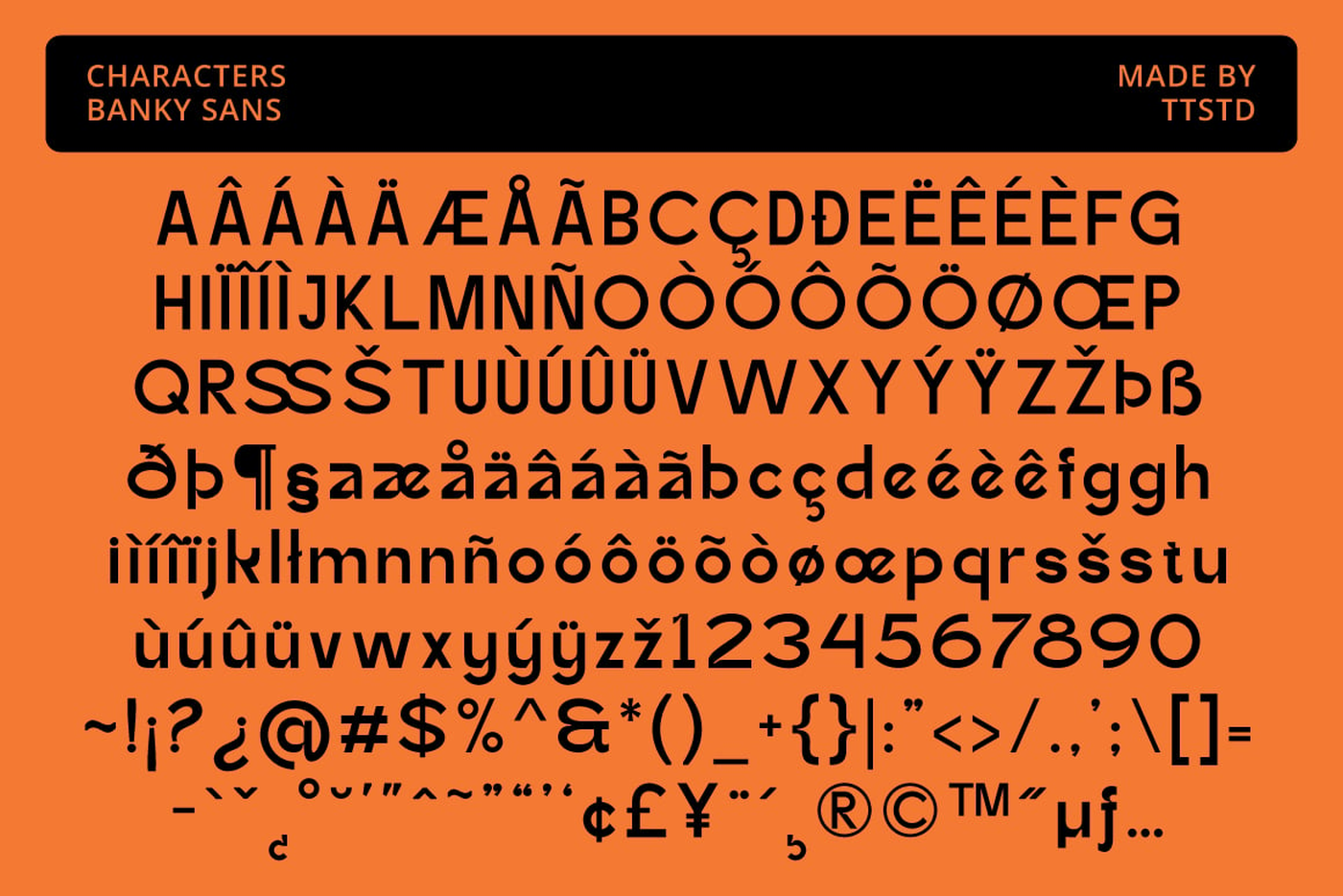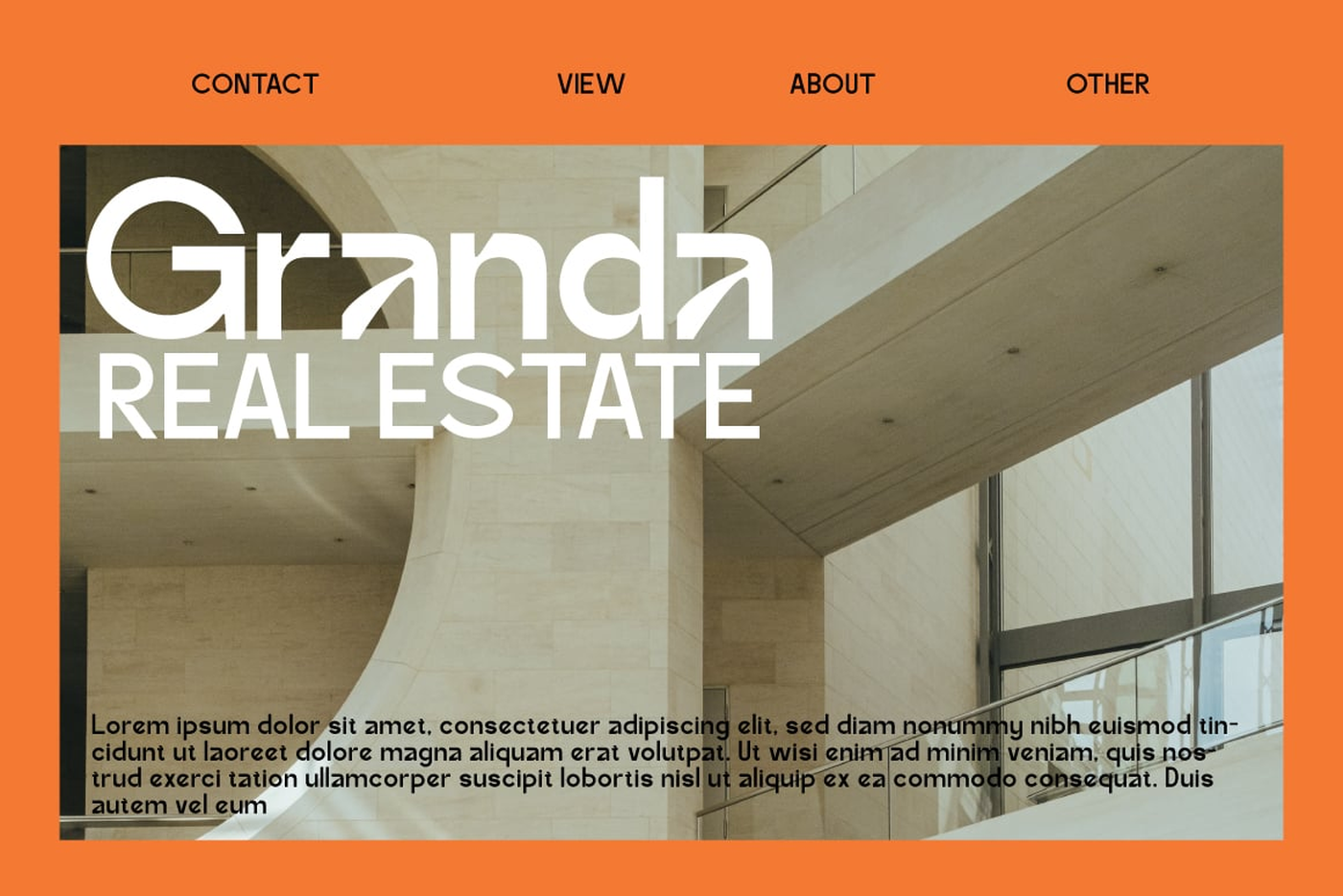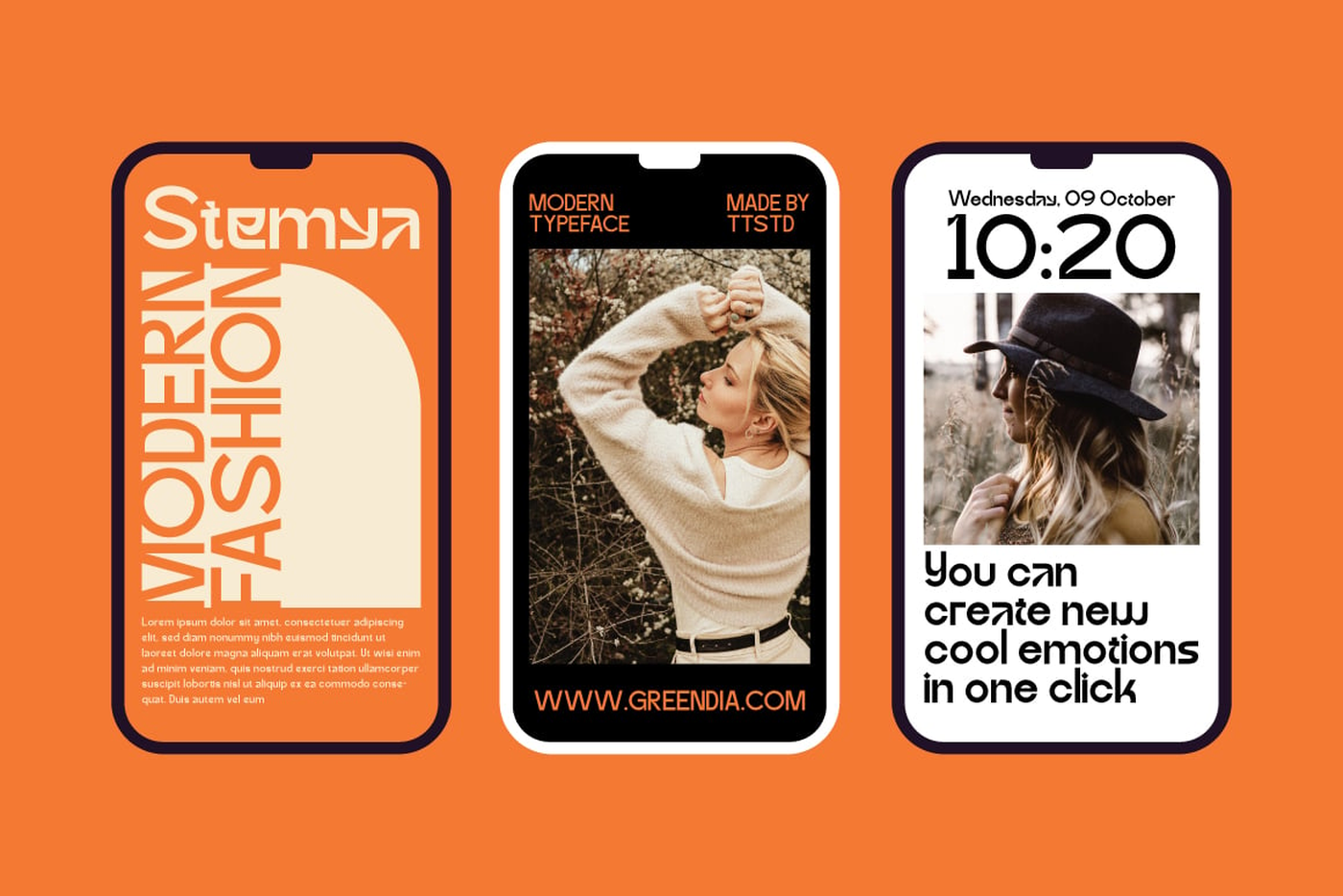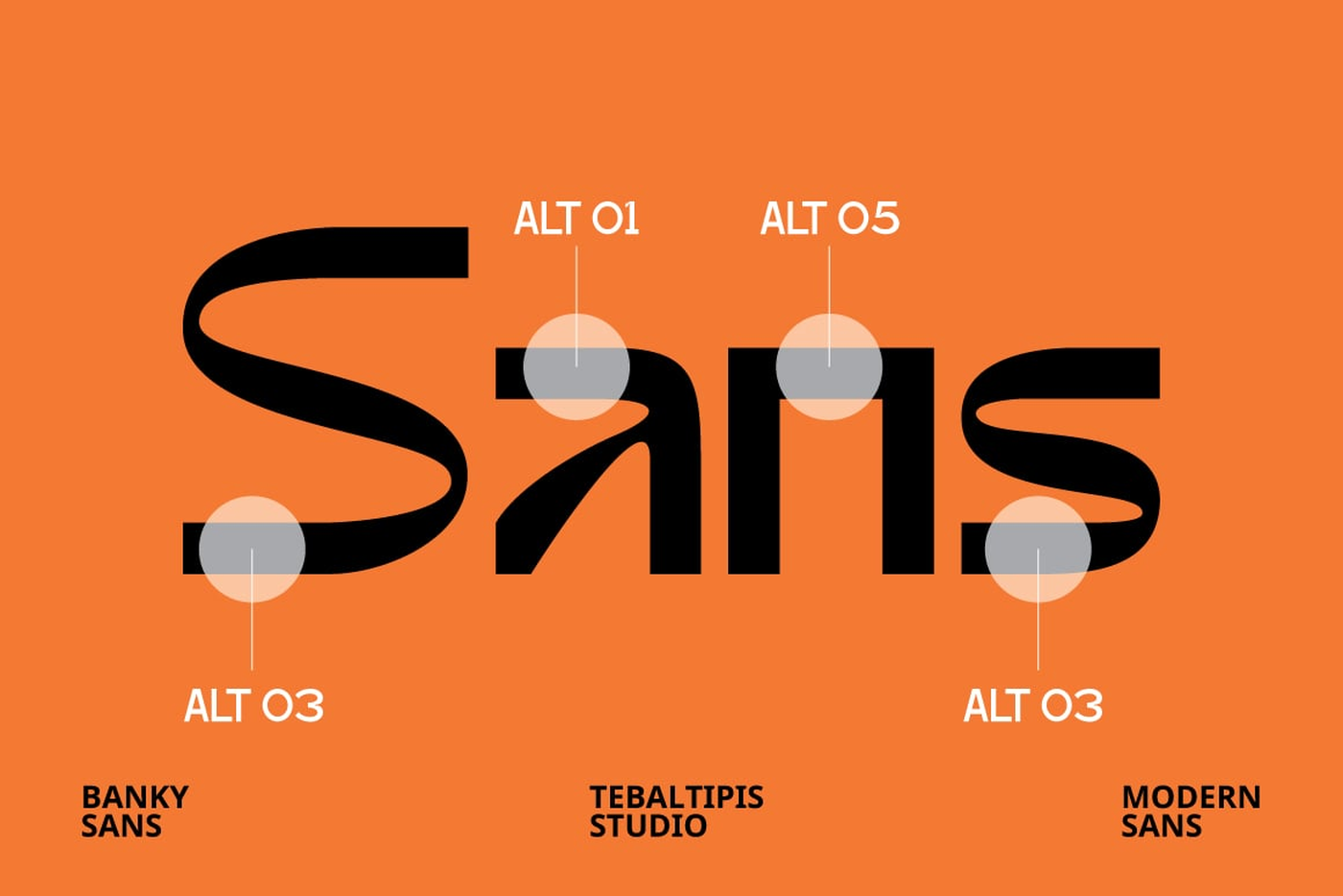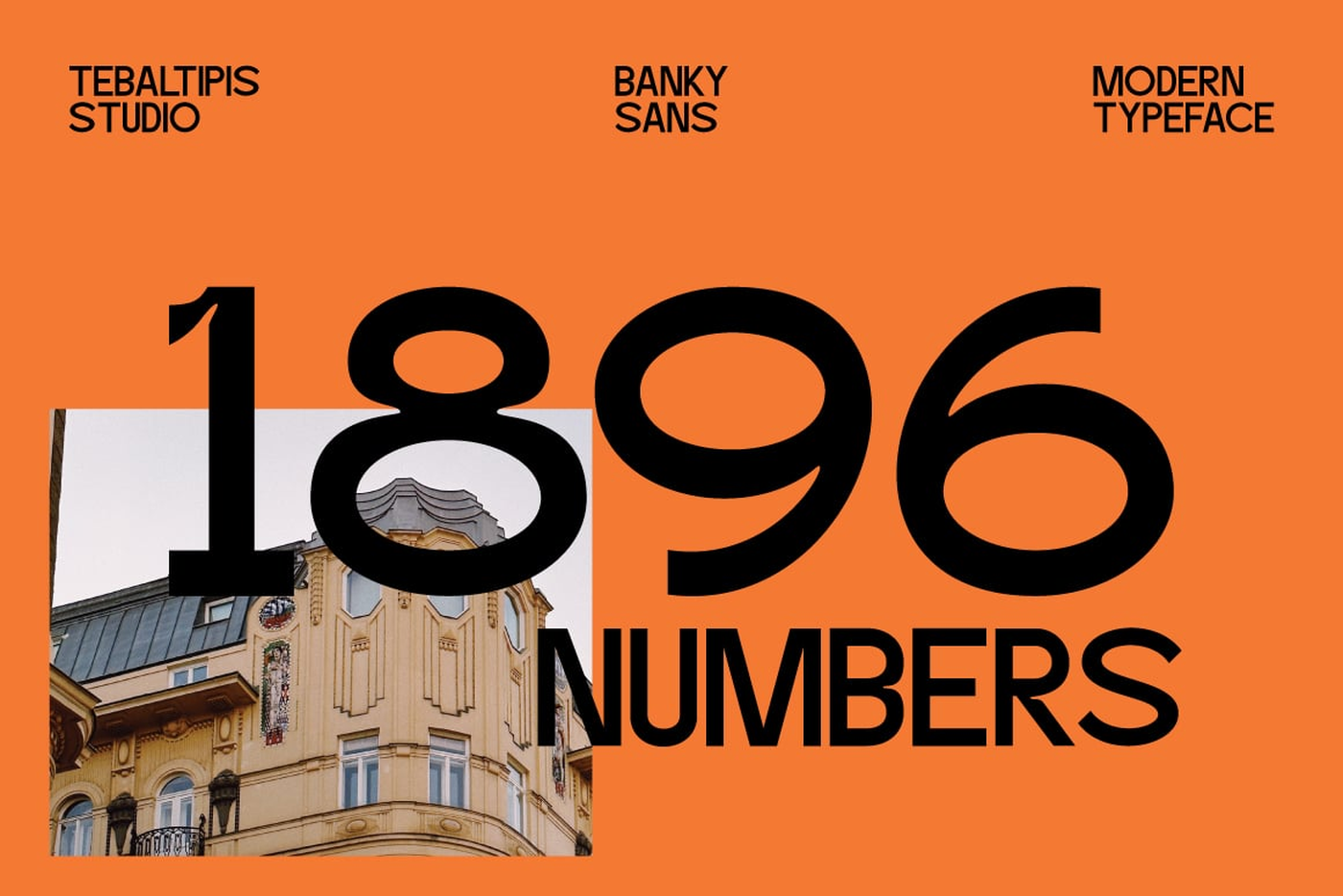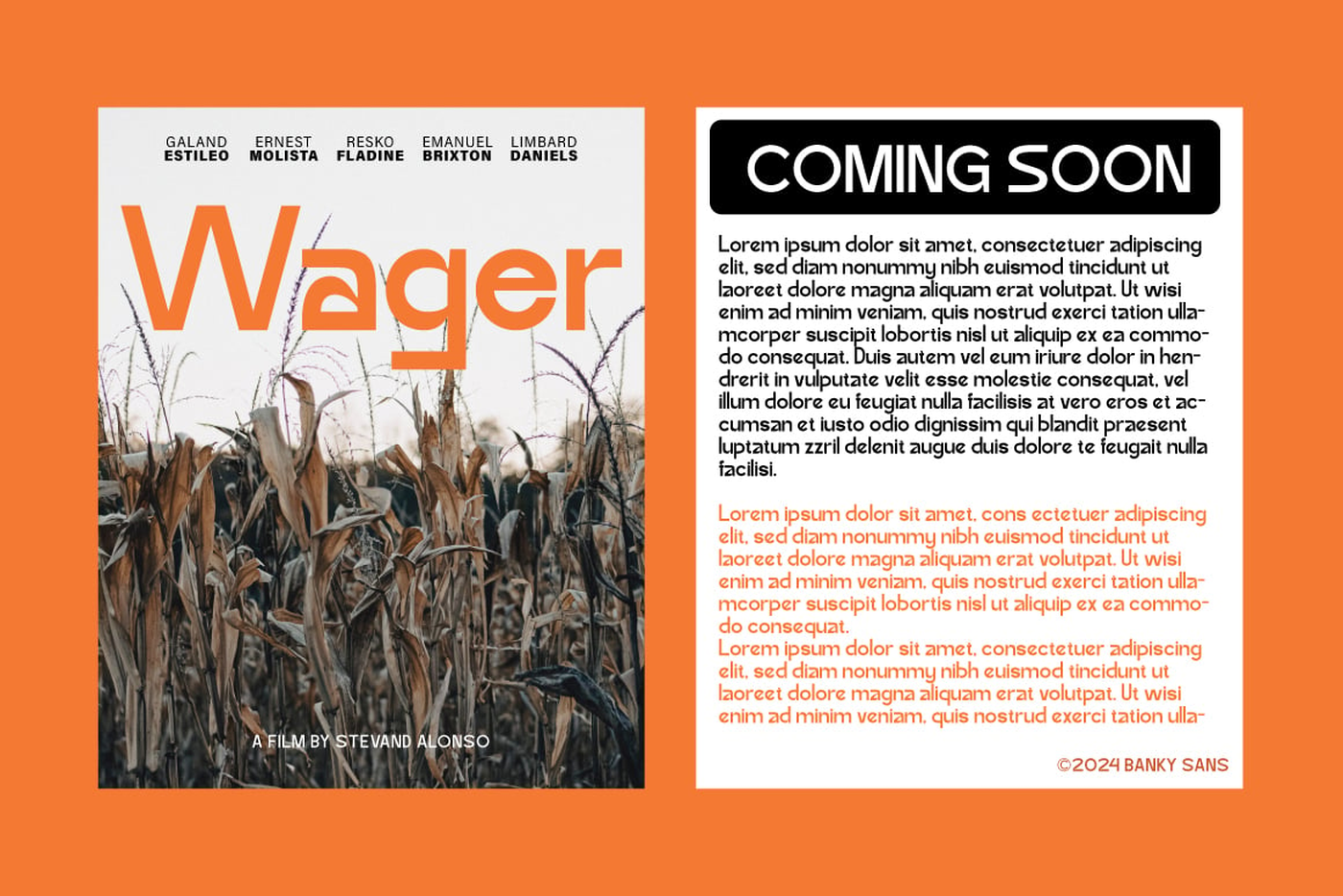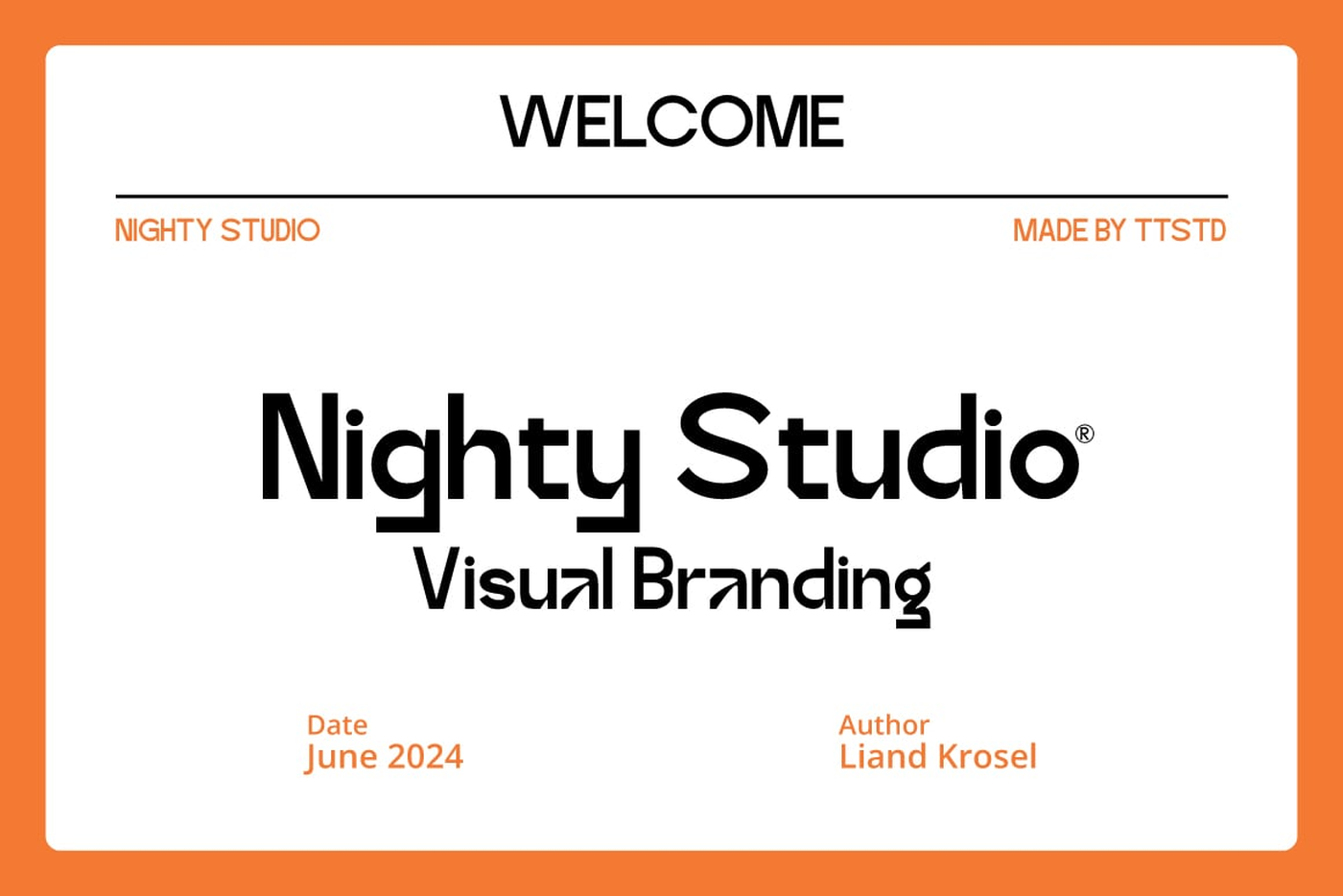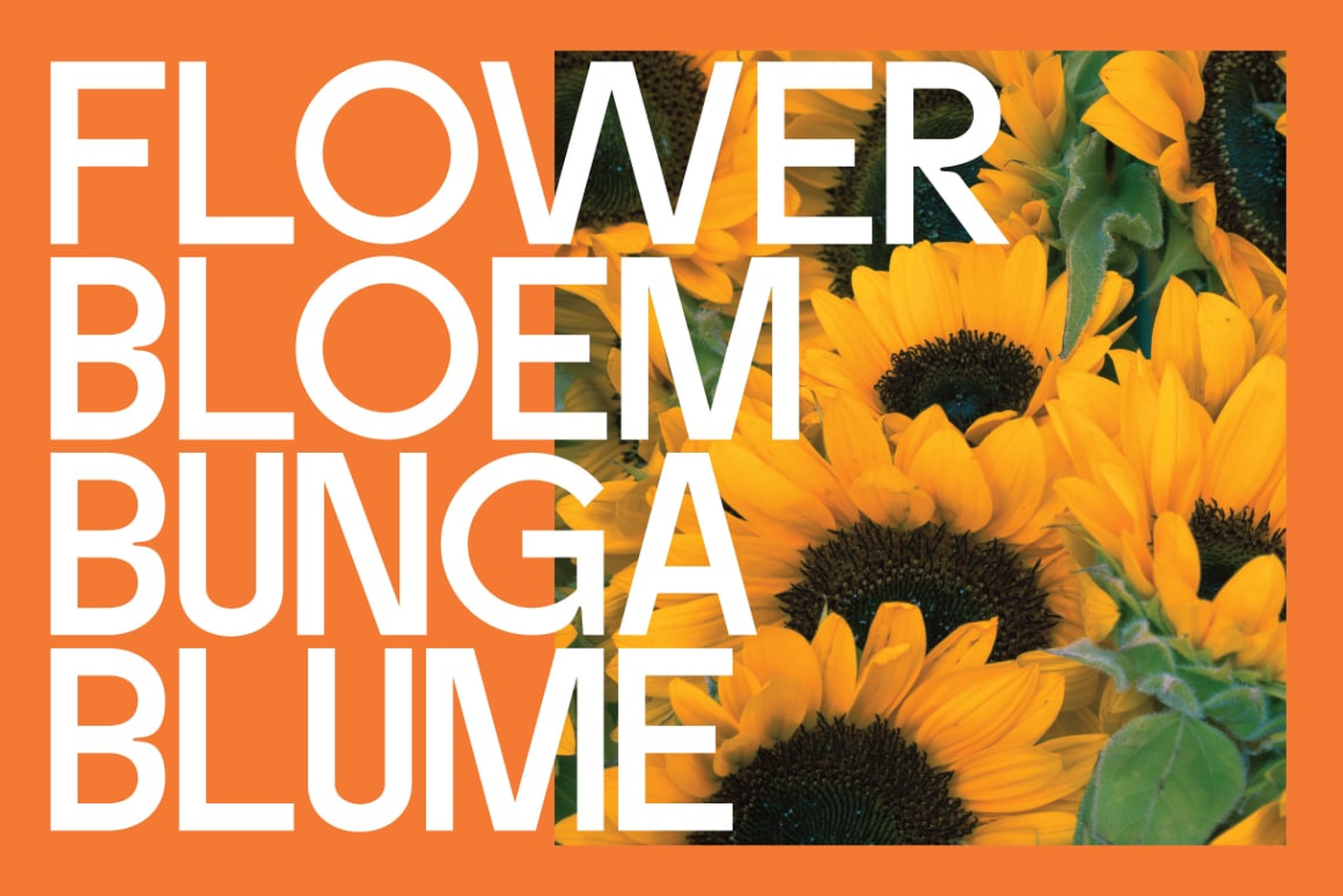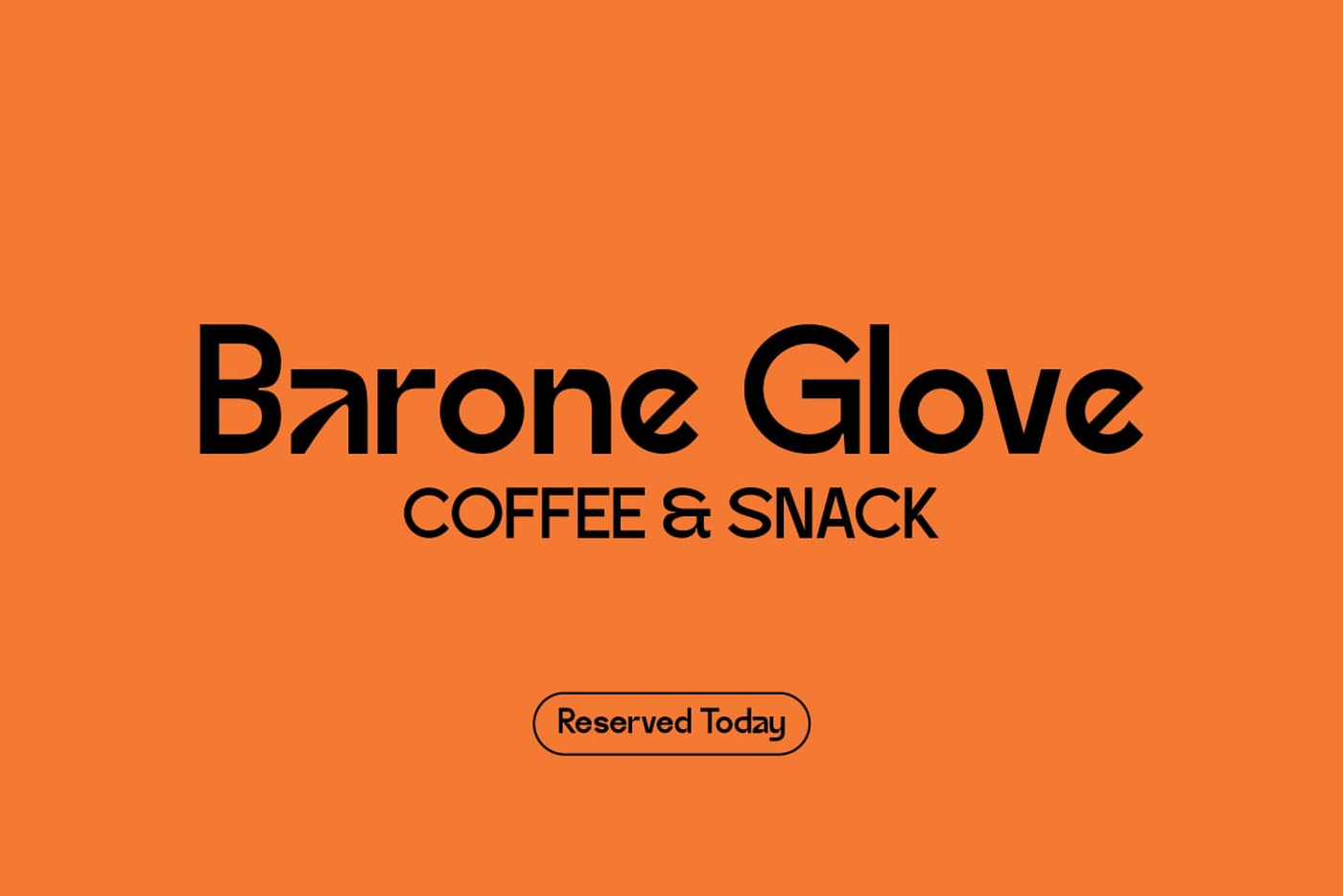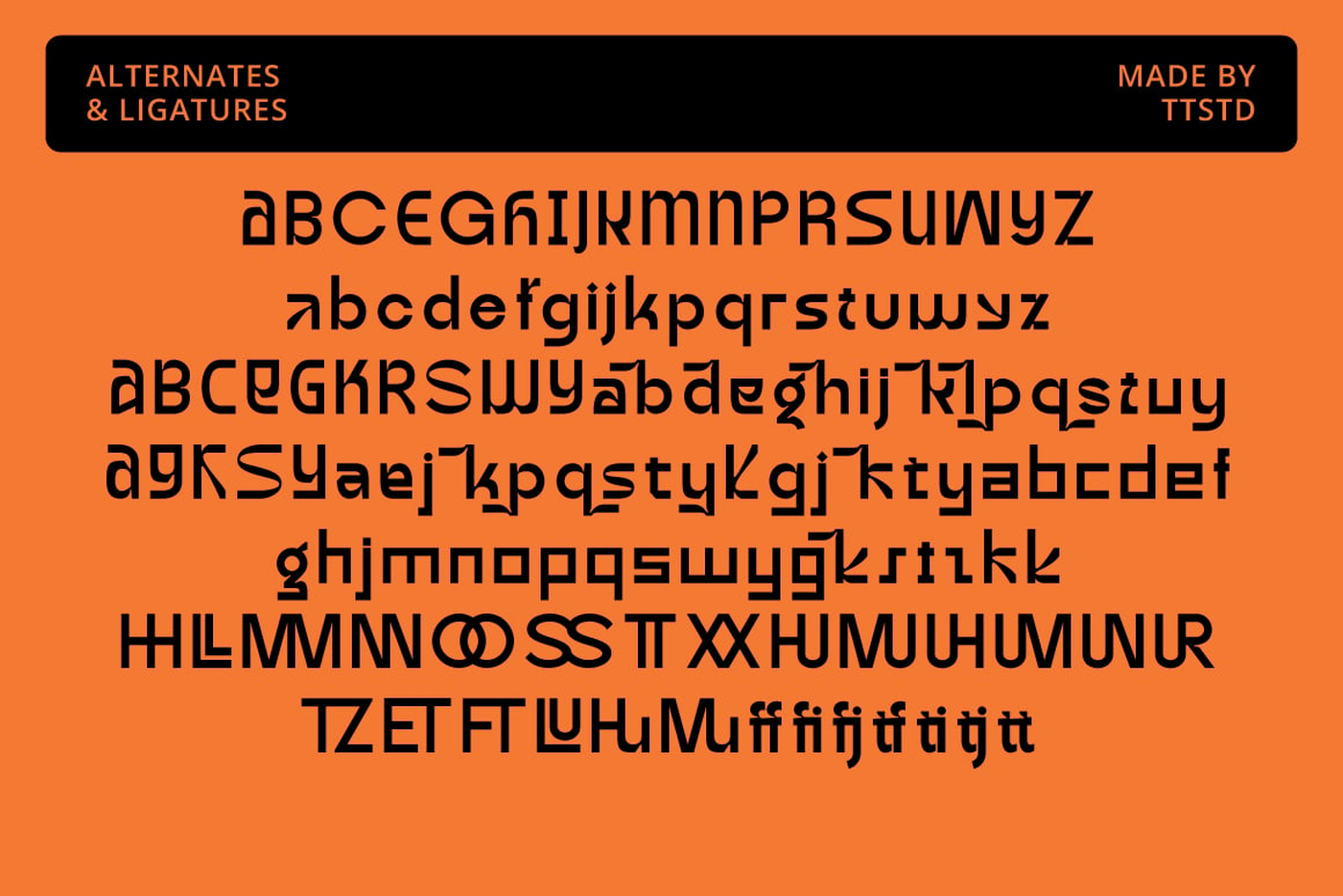
Banky - Modern Humanist Sans Serif Font
Banky Sans the perfect bold and narrow font for headlines and captivating displays. Ideal for designers seeking a modern and impactful look with retro and vintage vibes. Transform your projects with this regular and slant, condensed typeface that demands attention.